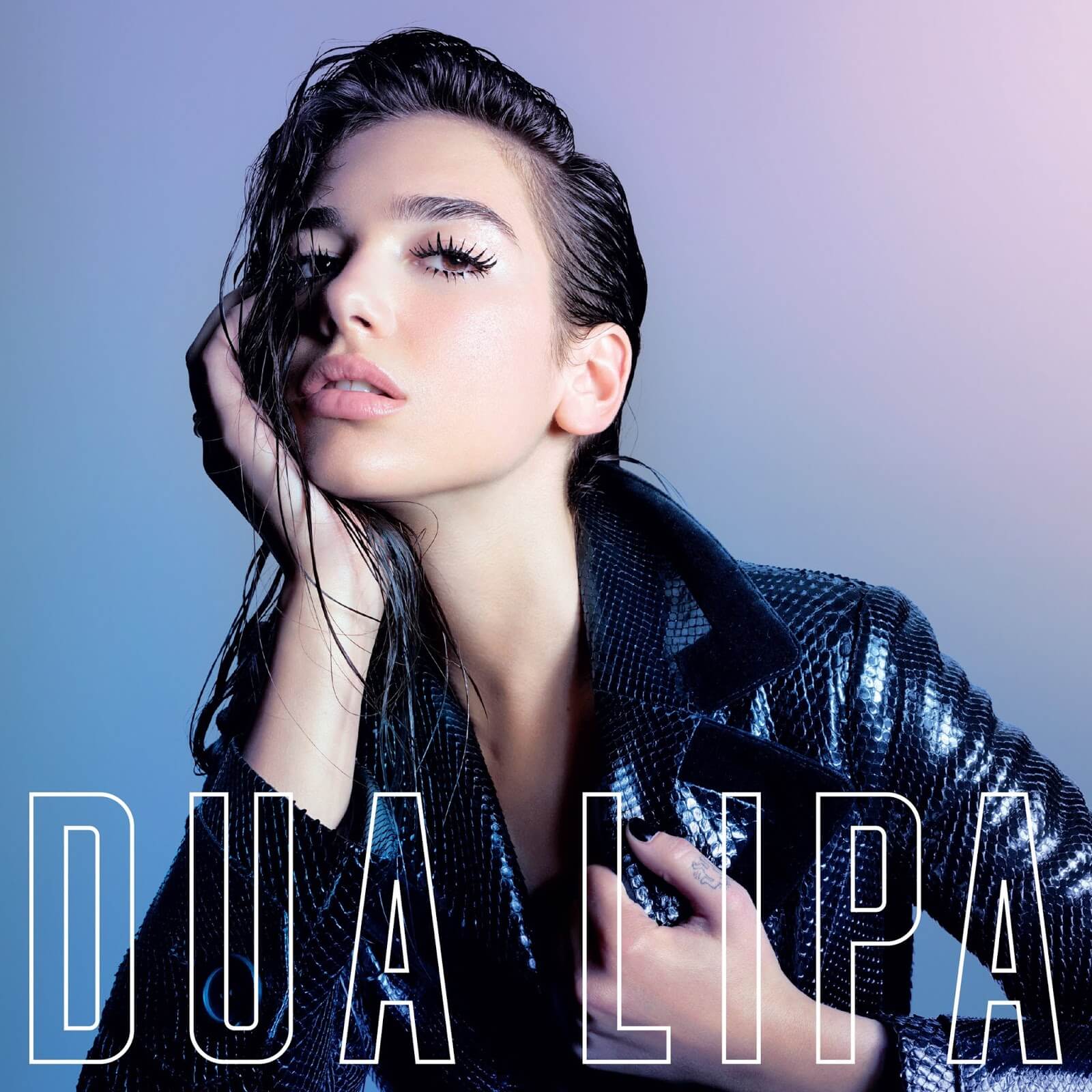
Dua Lipa Font
The outlined style album cover art showcases Matt Willey's MFRED, a condensed caps-only headline font with multiple alternates, available for more information here.